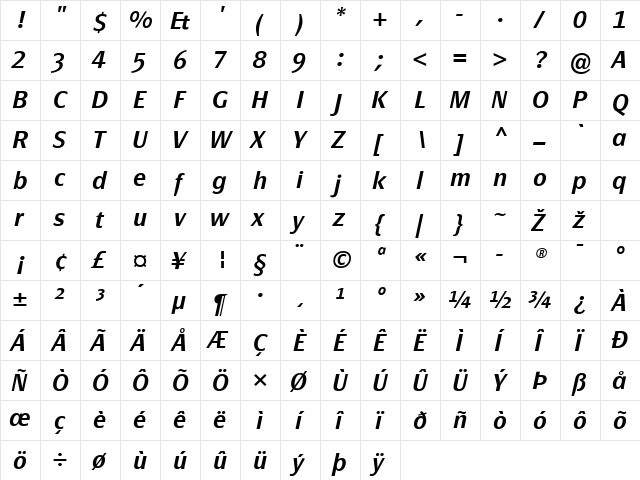
PageSansTF-DemiBoldItalic Regular
| Foundry | Albert Boton, published by FontShop International for the FontFont Library |
| Designer | Albert Boton |
Design Context for PageSansTF-DemiBoldItalic Typeface
PageSansTF-DemiBoldItalic offers clean, dependable letterforms without strong stylistic allegiance, making it a practical choice for designers who need flexibility. The dynamic lean of this cut emphasises speed and emphasis in any layout. Its bold stroke weight gives it real presence on the page.
Pro Tip: Use PageSansTF-DemiBoldItalic for emphasis, pull quotes, and subheadings where its slanted energy can add rhythm to the layout.